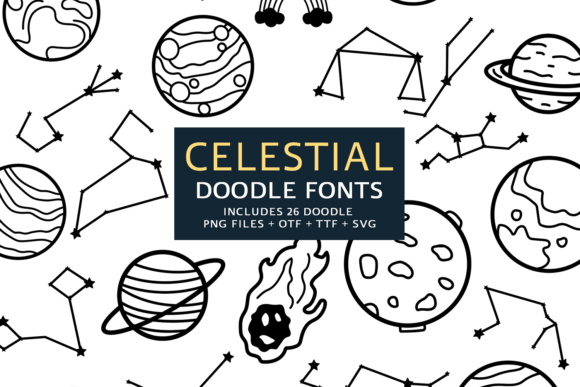
In a world overrun with monotony, where fonts often blend together like raindrops in a storm, there exists a font that defies conformity and ignites the imagination: Celestial Doodle Font. This enchanting dingbats font is the brainchild of digitalplannerland, a visionary collective dedicated to transforming the ordinary into the extraordinary.
With its infinite charm and boundless possibilities, Celestial Doodle Font is an ode to creativity and self-expression. Its intricate celestial motifs and whimsical doodles dance across your screen, beckoning you to explore the depths of your imagination.
Unlike conventional fonts that confine you to the mundane, Celestial Doodle Font empowers you to break free from the chains of convention. It invites you on a journey where your creativity knows no bounds, where each stroke of the pen becomes a testament to your unique artistry.
Picture this: you're designing a Valentine's Day card for that special someone in your life. The words "I love you" hold immense weight, but they need a presentation that matches their significance. With Celestial Doodle Font, you can craft a card that transcends mere words, a card that speaks to the heart in a language only love can understand.
The celestial motifs will shimmer under the moonlight, capturing the essence of your affection. The adorable doodles will add a touch of playfulness and charm, reflecting the joy and laughter you share. Each letter, meticulously crafted with love, will carry your heartfelt message, ensuring that your Valentine feels cherished and adored.
And Celestial Doodle Font isn't just limited to Valentine's Day; its versatility extends far beyond a single holiday. Its whimsical nature makes it perfect for crafting invitations, planners, diaries, and activity books that ignite the imagination and inspire creativity.
Whether you're a seasoned designer or a novice just starting your creative journey, Celestial Doodle Font is your trusty companion. Its user-friendly interface and boundless potential make it accessible to all, empowering you to transform your ideas into tangible works of art.
So, embark on this creative adventure with Celestial Doodle Font. Let its celestial magic transport you to a realm where imagination reigns supreme, and your designs become masterpieces that touch the hearts of all who behold them.